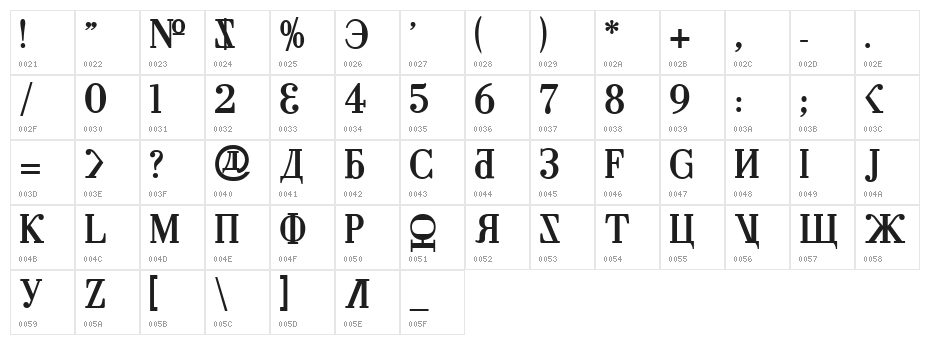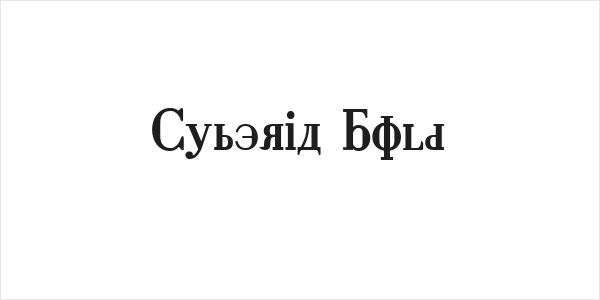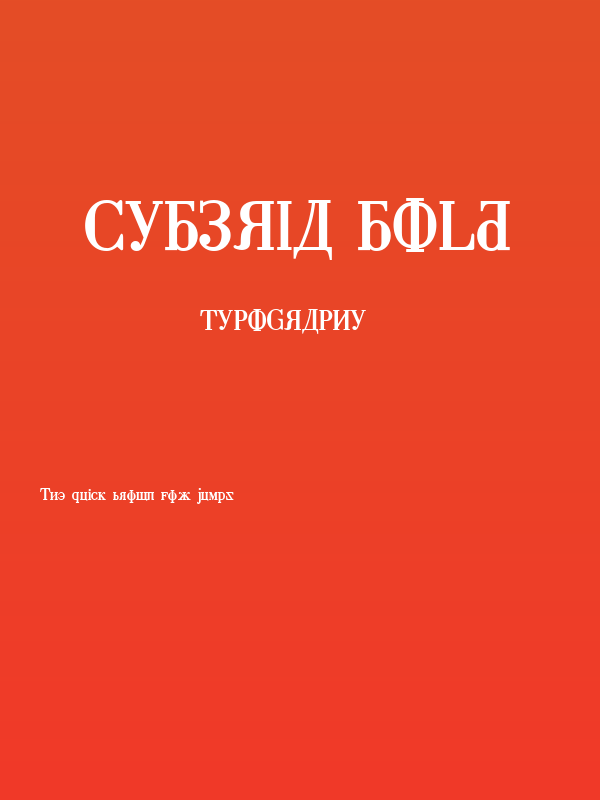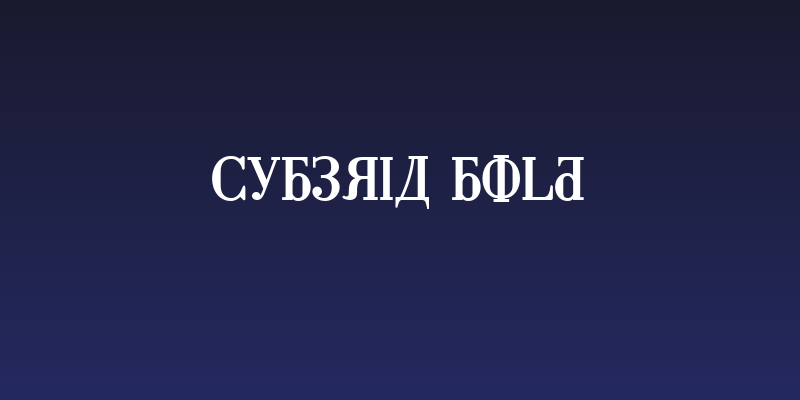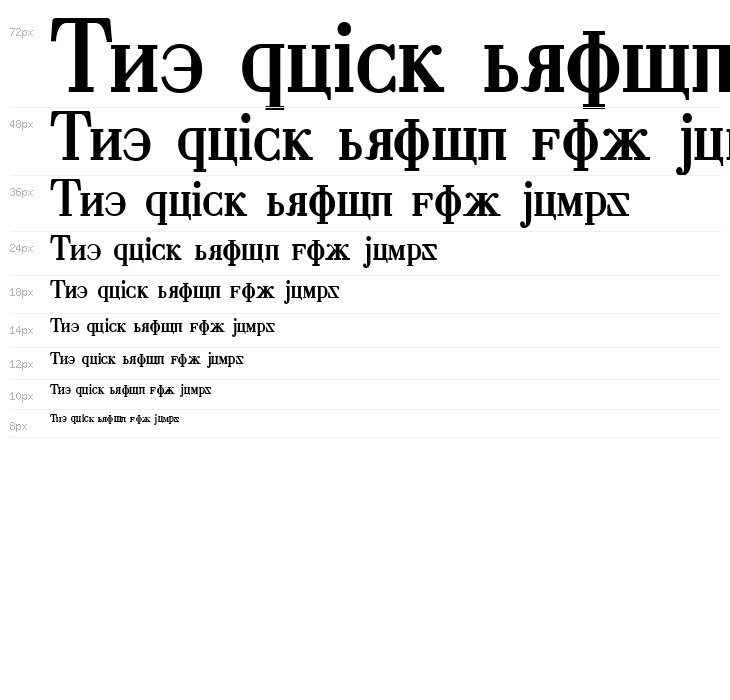
Cyberia Bold Font
Cyberia Bold Description
This font exhibits a bold and striking presence, characterized by its strong serifs and high contrast between thick and thin strokes. The uppercase letters are particularly prominent, with a distinct geometric influence that adds a modern edge. The lowercase letters maintain a consistent style, ensuring readability while retaining the bold aesthetic. Numerals are clear and robust, matching the overall weight of the font. Special characters are designed with the same attention to detail, making them stand out effectively. The font's design is both functional and decorative, suitable for a variety of applications.
| Proposed Projects | Ideal for branding, headlines, posters, and editorial design where a strong visual impact is desired. |